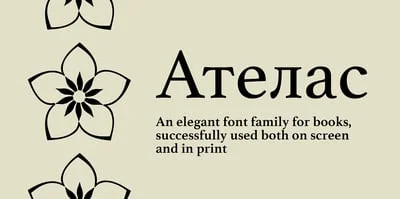
Athelas Font
The Athelas Font is a beautifully designed serif typeface, celebrated for its elegant proportions, superb readability, and a harmonious blend of traditional charm with modern refinement. Imagined as a contemporary interpretation of classic book faces, its inviting characters are perfect for literary publications, adding a sophisticated touch to high-end magazines, or serving as the ideal body text for e-books and digital reading platforms. Its graceful serifs, open counters, and balanced weight ensure effortless reading, even in long passages. Athelas Font is also an excellent choice for academic papers, elegant corporate reports, and any content where clarity, aesthetic pleasure, and sustained readability are paramount. It delivers with its unwavering quality, ensuring your message is conveyed with supreme legibility and a classic, distinguished aesthetic that truly respects the written word.
What makes Athelas Font so exciting is its masterful design for comfortable reading on screens while retaining the elegance of print. Named after the healing herb in Tolkien's The Lord of the Rings, it's specifically optimized to reduce eye strain during extended reading sessions, a crucial feature in today's digital world. This font offers designers the ability to infuse their projects with a deep sense of literary heritage and refined sophistication, making content feel both intellectually rich and effortlessly accessible. It’s more than just a typeface; it’s a dedication to the reader's experience, providing a foundation of understated beauty and intellectual depth that makes reading a genuine pleasure. Designers consistently praise its meticulous crafting, making it a reliable and powerful choice for discerning typographic projects.
The Athelas Font family is typically comprehensive, offering a versatile range of weights and styles to provide extensive typographic control, particularly optimized for continuous text. Beyond the foundational Athelas Regular, the family often includes corresponding Athelas Italic for emphasis, and various weights such as Athelas Light, Athelas Medium, and Athelas Bold. Professional versions often come with an extensive character set, ligatures, small caps, and various numeral styles (e.g., old-style figures, lining figures), providing immense flexibility for sophisticated typesetting and complex editorial layouts. These diverse family members ensure that designers can create intricate and harmonious typographic systems, maintaining a consistent and elegant aesthetic from detailed body text to refined headlines.
For projects demanding unparalleled readability, classic elegance, and a sophisticated appeal for both print and digital mediums, consider the distinguished Athelas Font. It's an excellent choice to ensure your words are read with ease and beauty.